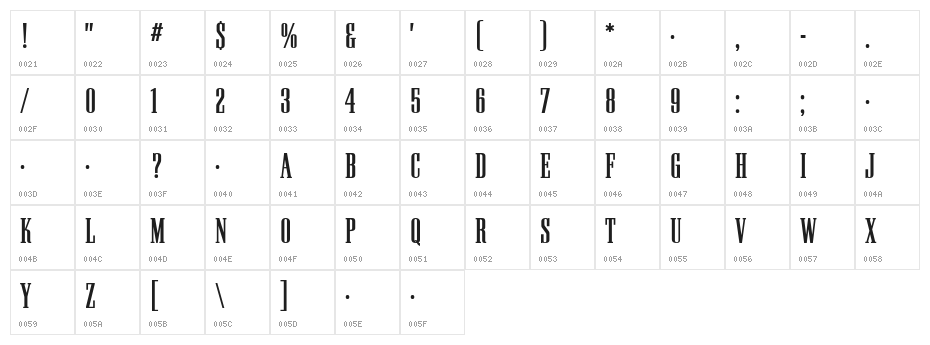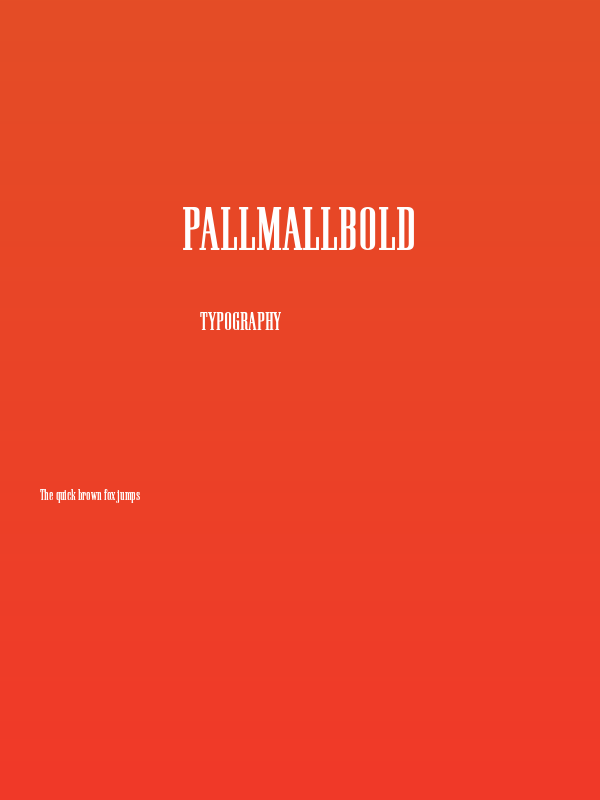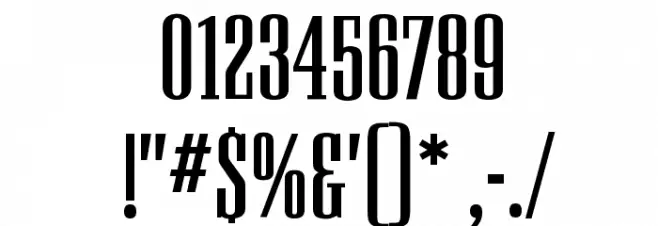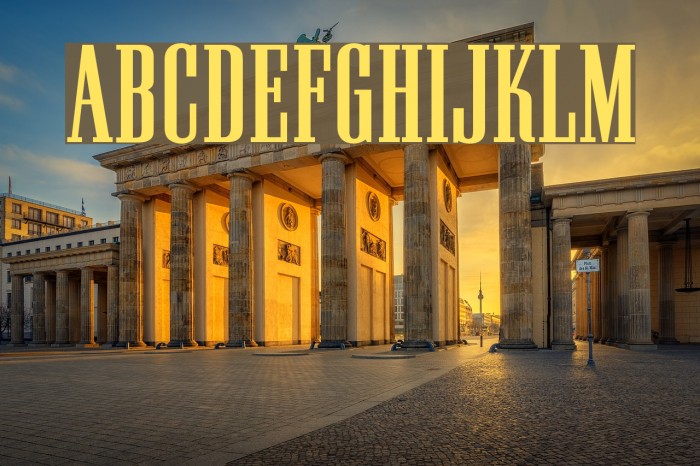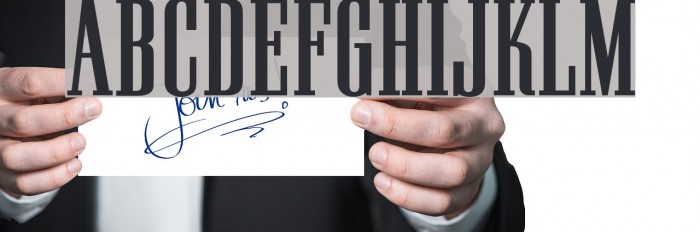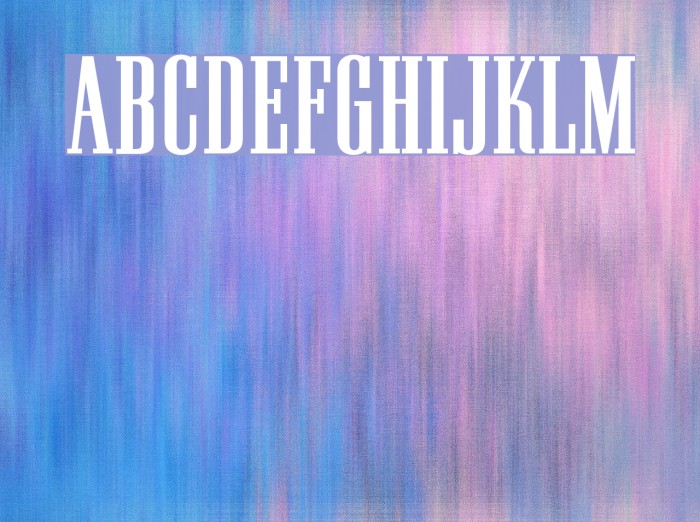
PallMallBold Font
PallMallBold Description
This font exhibits a bold and commanding presence with its strong vertical serifs and high contrast between thick and thin strokes. The uppercase letters are tall and narrow, creating a sense of elegance and authority. The lowercase letters maintain a consistent style, complementing the uppercase with their own distinctive flair. The numerals are clear and robust, ensuring readability. Special characters are designed with the same attention to detail, making them stand out. Overall, this font combines traditional serif elements with a modern twist, making it suitable for impactful and sophisticated designs.
| Width | Condensed |
| Overall Style | Classic |
| Proposed Projects | Ideal for use in branding, editorial design, book covers, and luxury product packaging. |